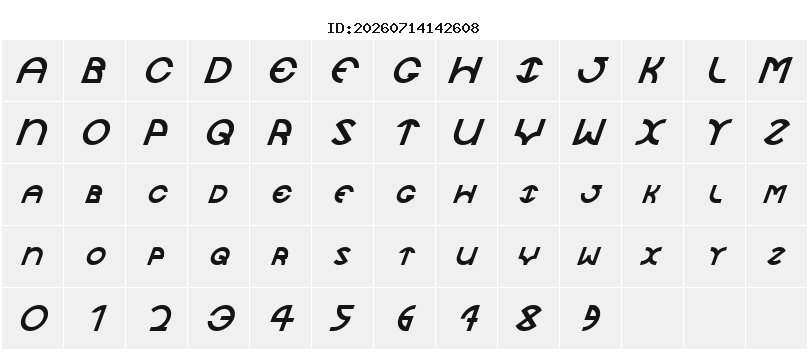
JaySetch Preview
• Font Name: JaySetch
• Font Style: BoldItalic
• Font ID: Altsys Fontographer 4.0.2 JaySetch BoldItalic
• Full Font Name: JaySetch BoldItalic
• Version: Altsys Fontographer 4.0.2 10/25/93
• PostScript Name: JaySetchBoldItalic
About JaySetch.ttf
JaySetch.ttf is a modern, elegant sans-serif font designed for ultimate readability and visual harmony. Perfect for branding, headlines, web design, and print materials.